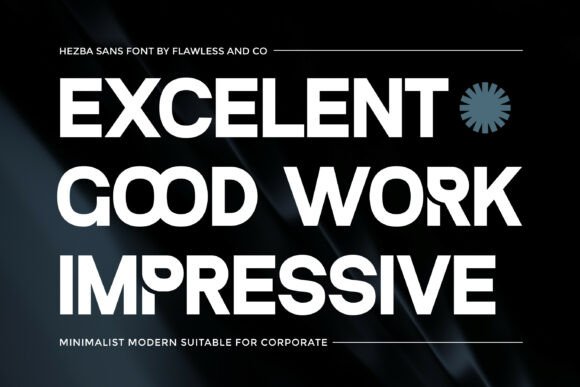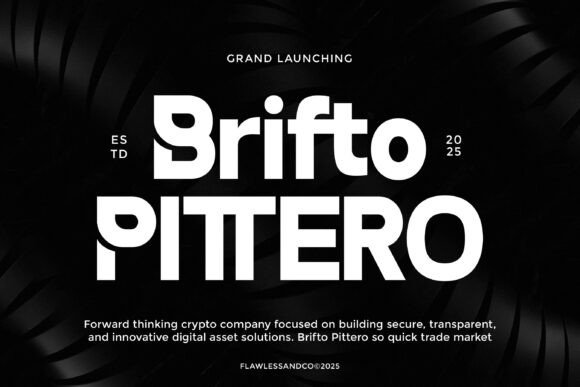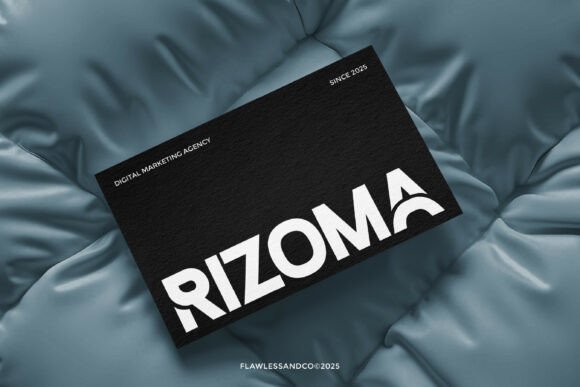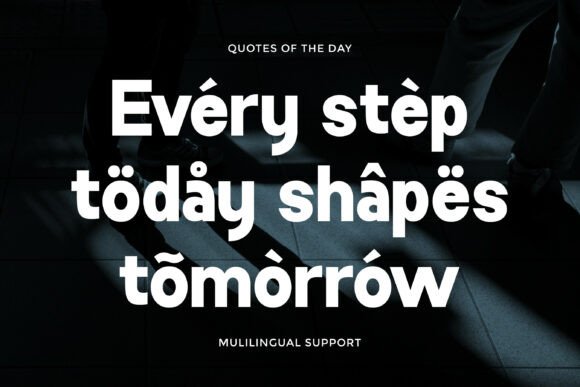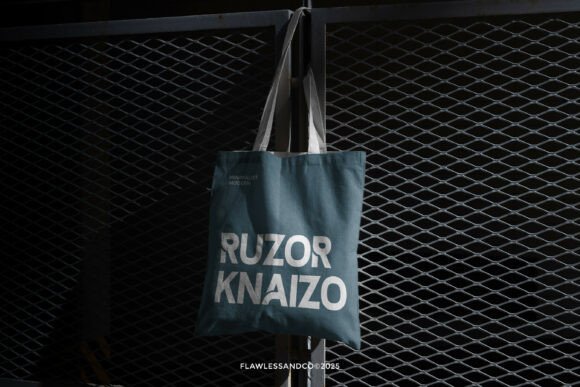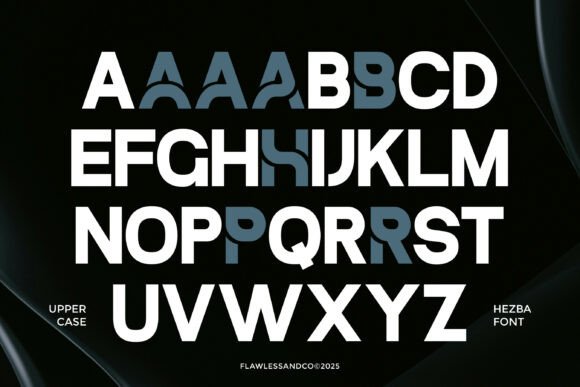
Introduction to Hezba Font
Hezba is a modern sans serif typeface designed with a clean, minimalist, and contemporary approach.
Its sharp structure, balanced proportions, and smooth curves make Hezba highly versatile and easy to read across various design applications Hezba is a modern sans serif typeface designed with a clean, minimalist, and contemporary approach.
Key Features of Hezba Font